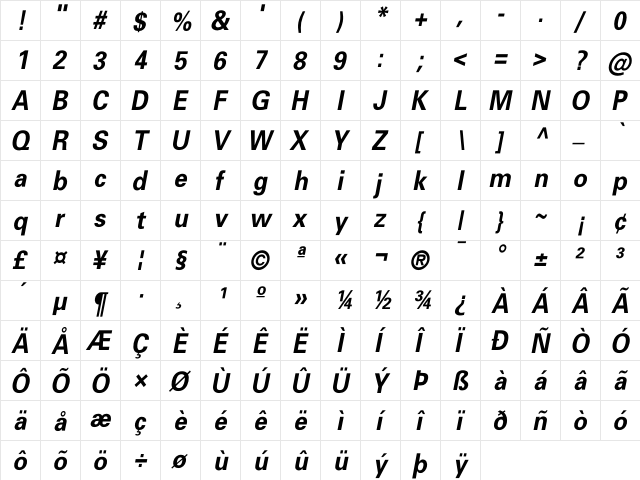
Beetham BoldOblique
Design Context for Beetham Typeface
Beetham takes a measured approach to typography — its balanced proportions and neutral character make it a reliable workhorse for both digital and print work. Its italic angle brings a sense of urgency and motion to the letterforms. The heavy weight commands attention and anchors typographic hierarchies.
Pro Tip: Use Beetham for emphasis, pull quotes, and subheadings where its slanted energy can add rhythm to the layout.